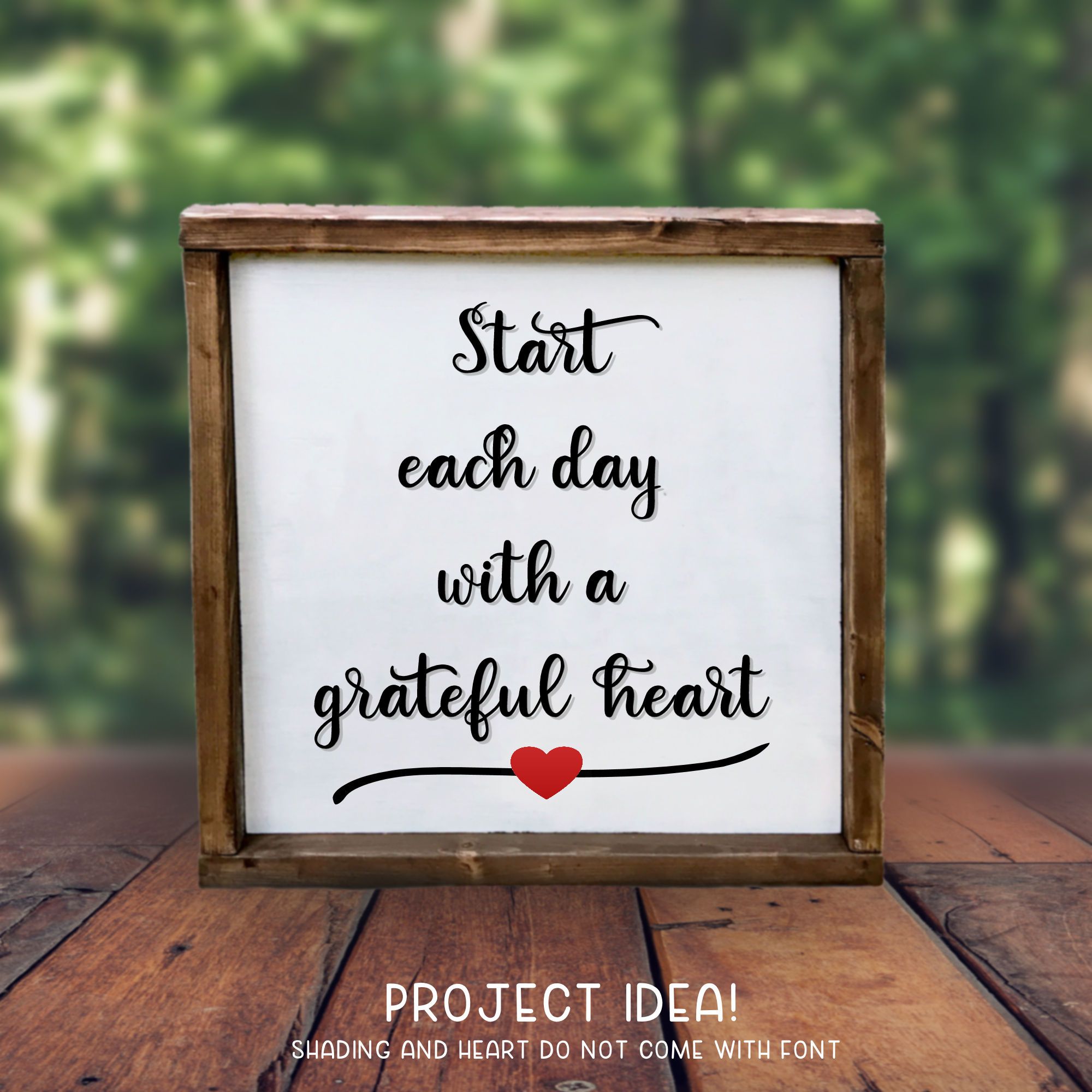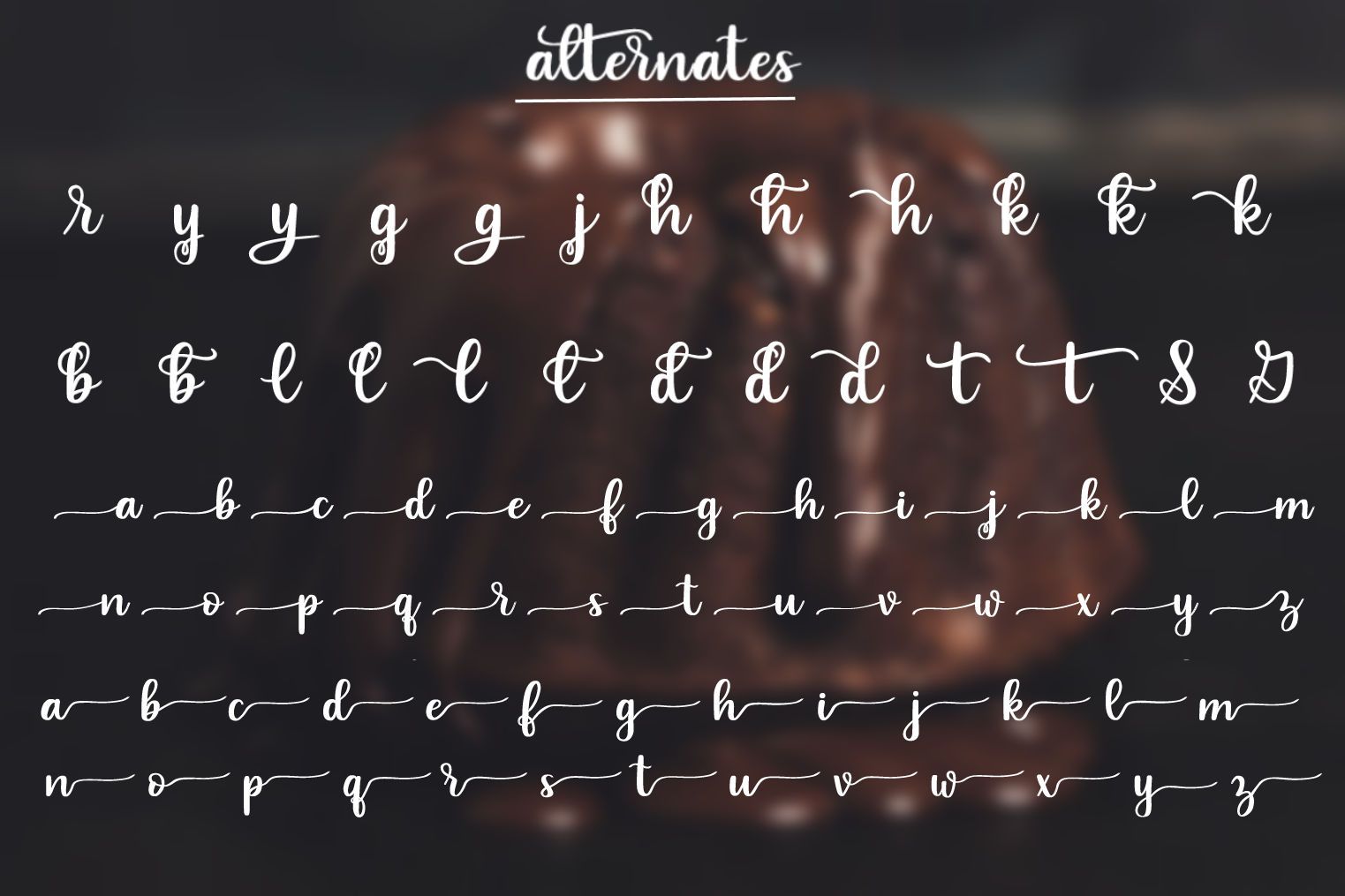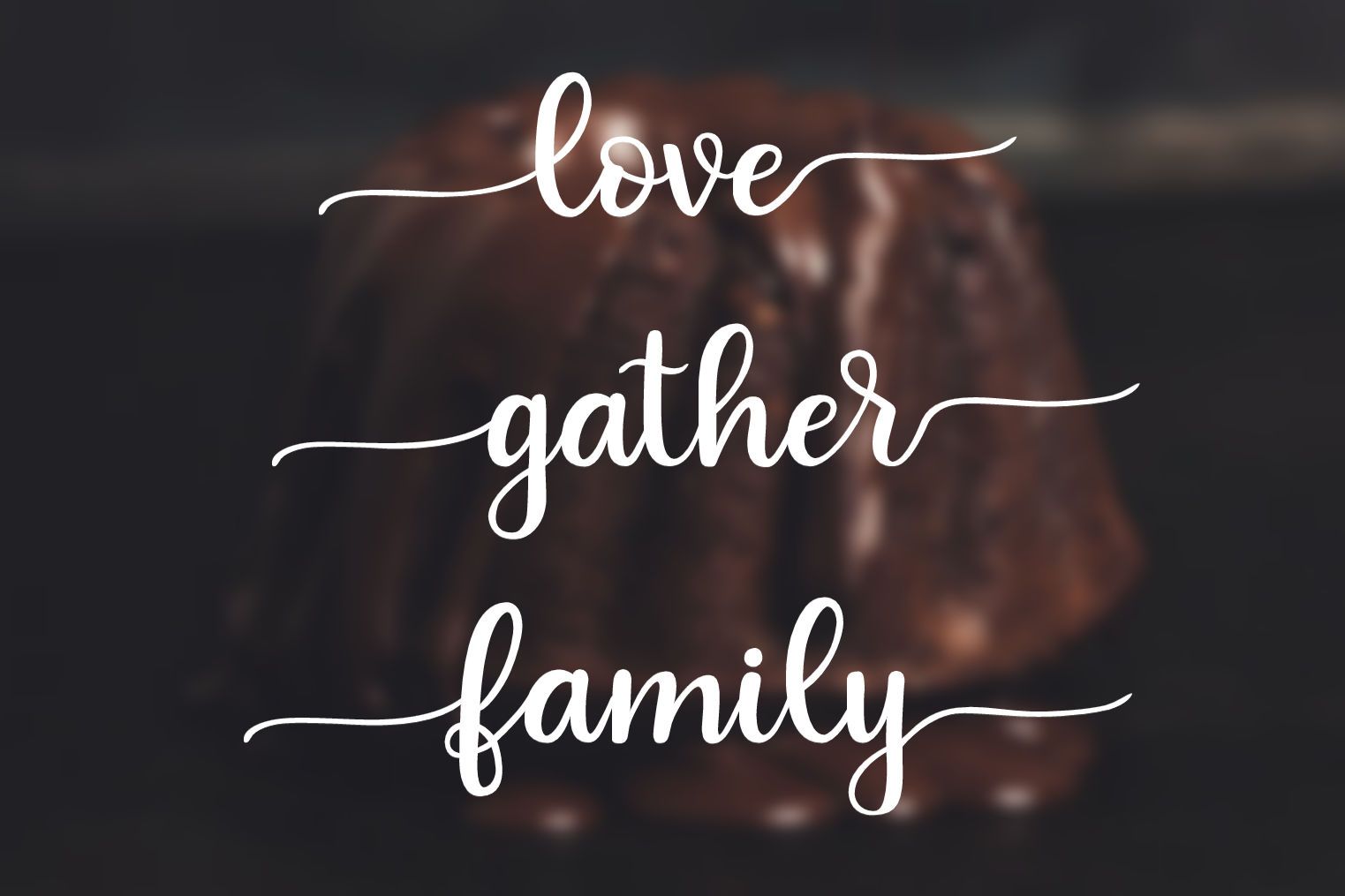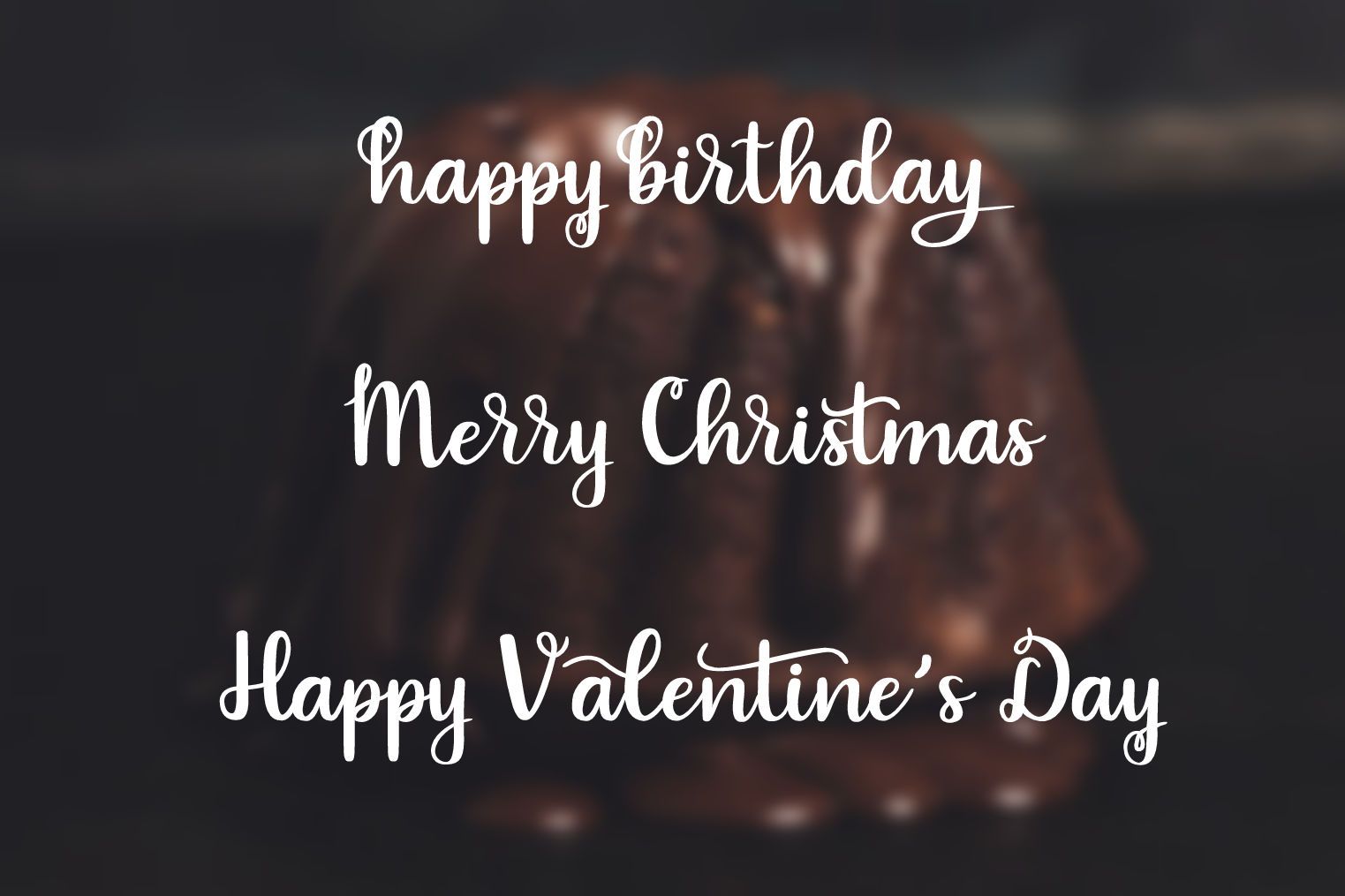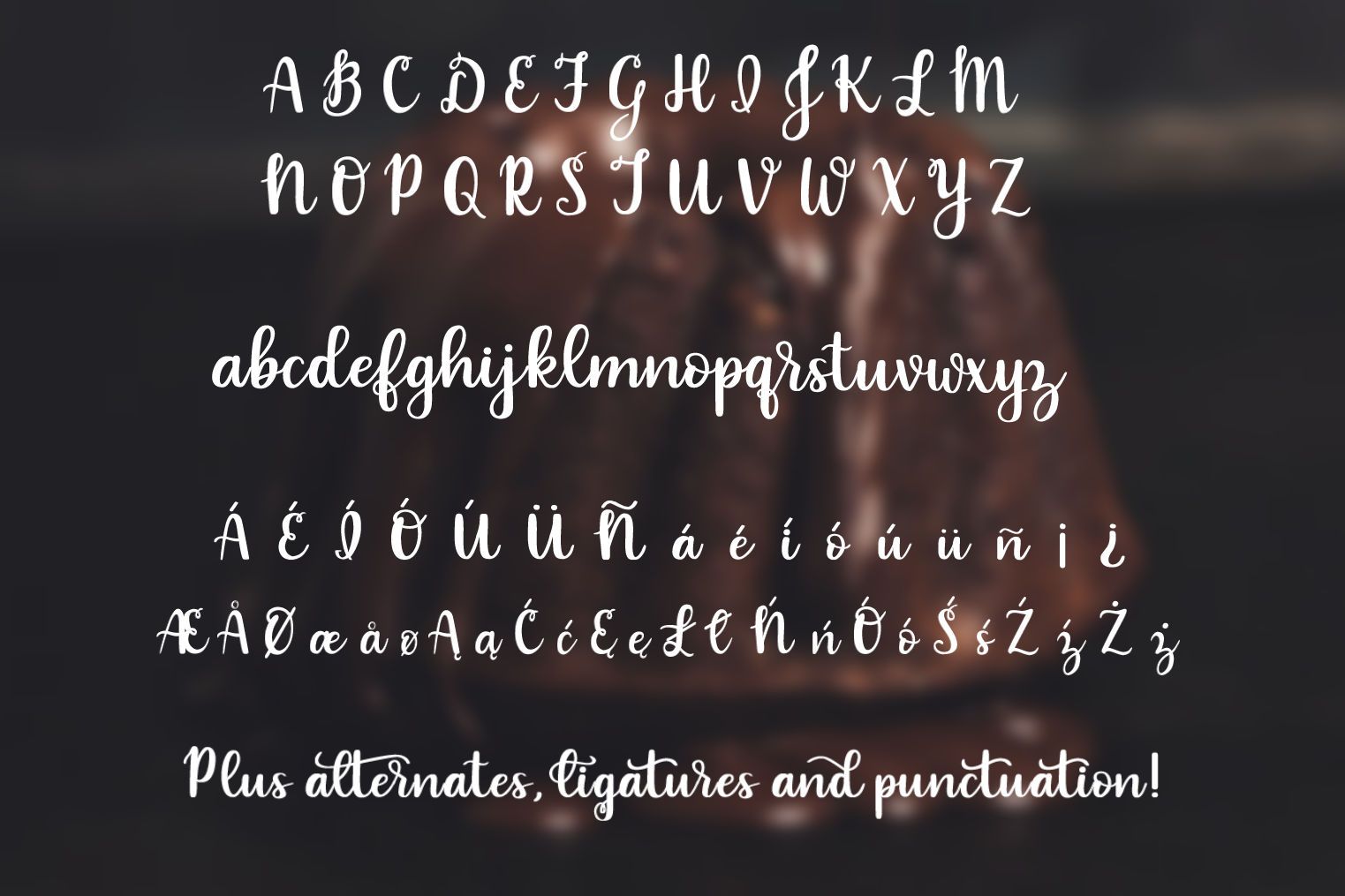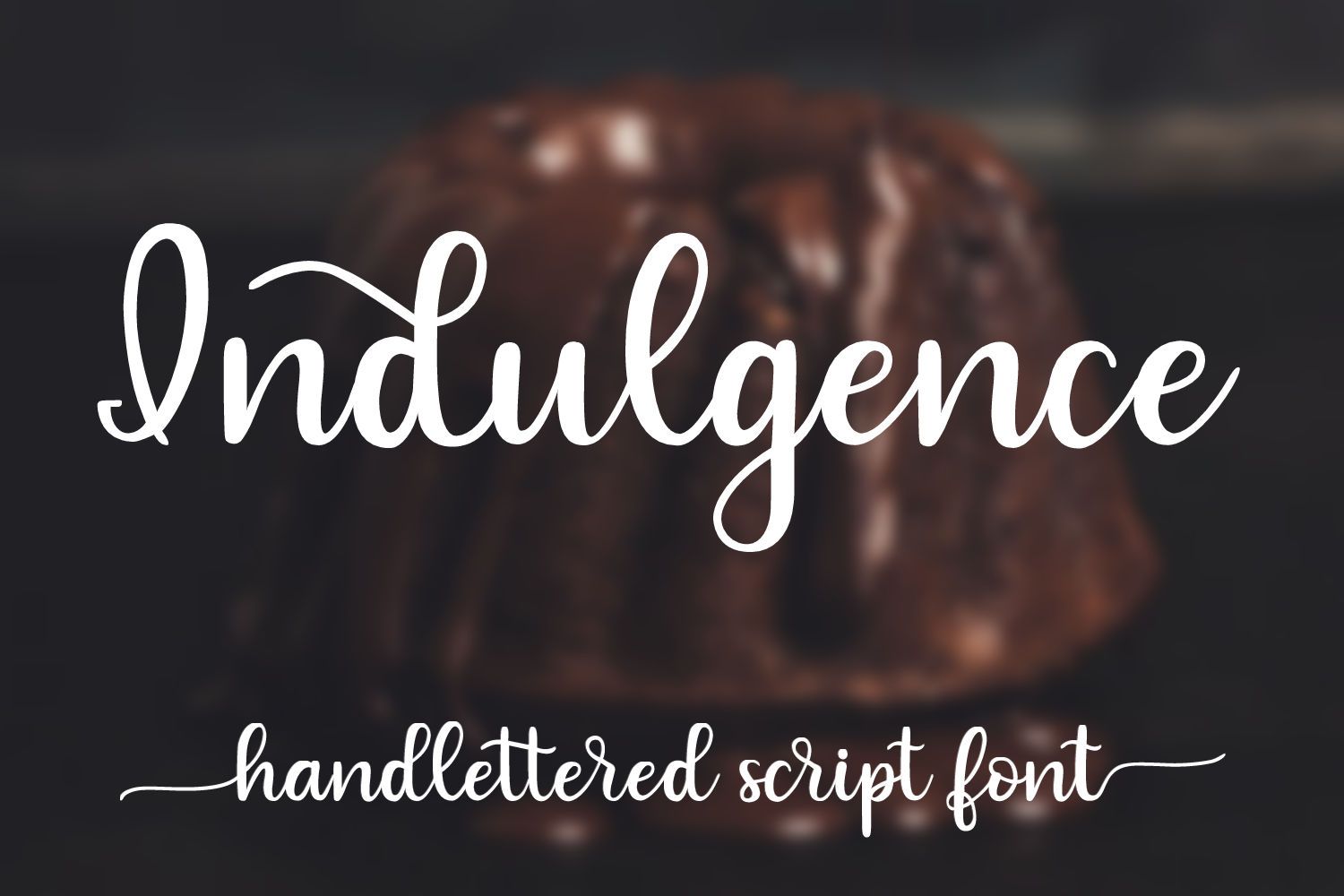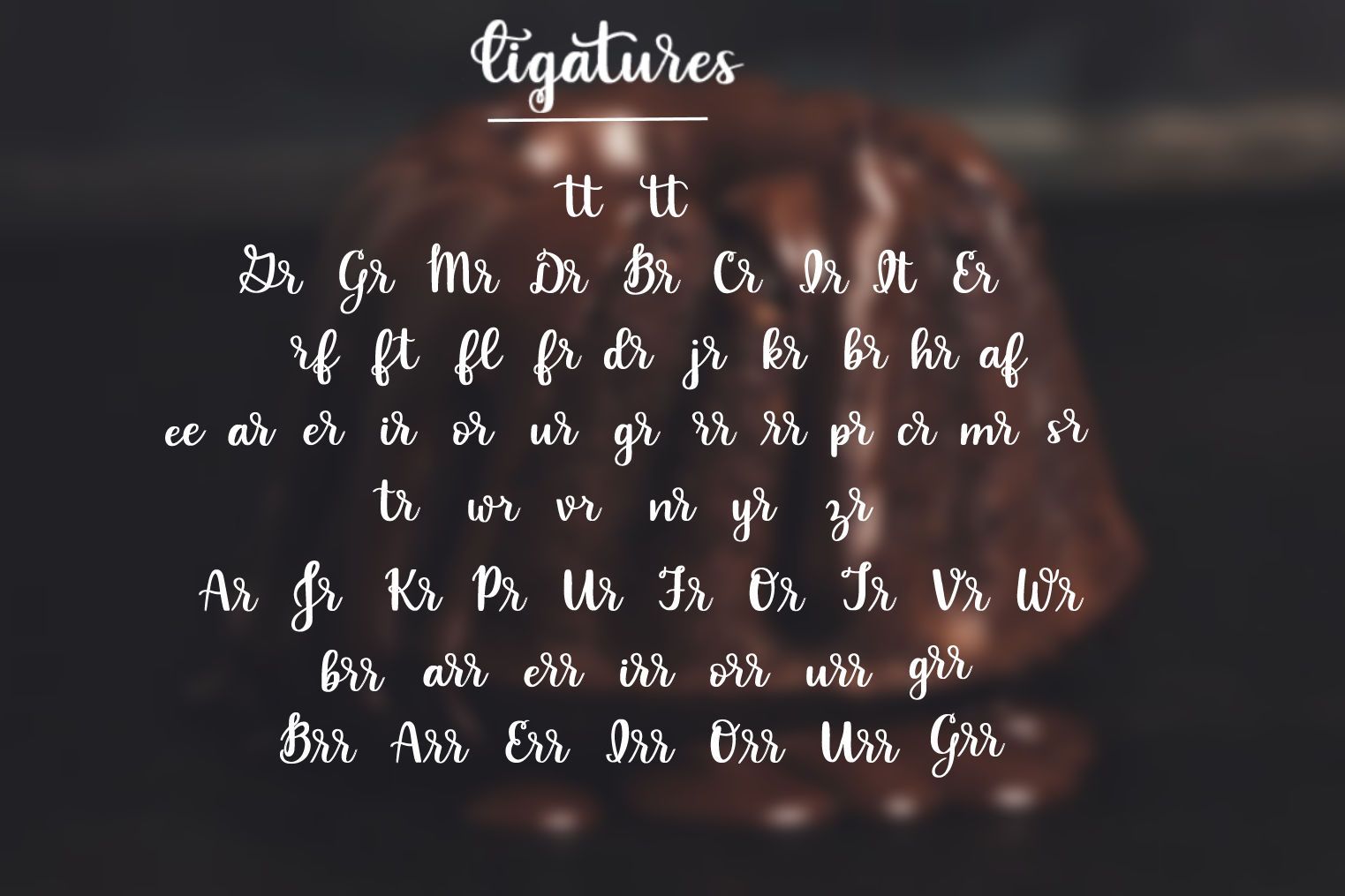
Indulgence – A handlettered script font
Indulgence is a handlettered script font made up of capital letters A-Z, lowercase letters a-z, alternates, ligatures, numbers 0-9 and punctuation. Indulgence is great for cards, invitations, scrapbooking, SVG design, and more! This font can be used for personal or commercial projects. File Type: otf